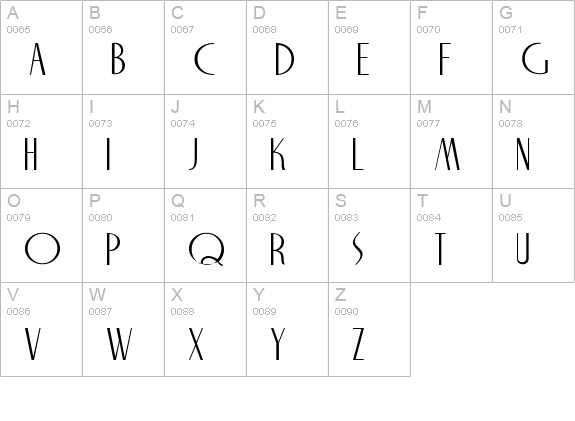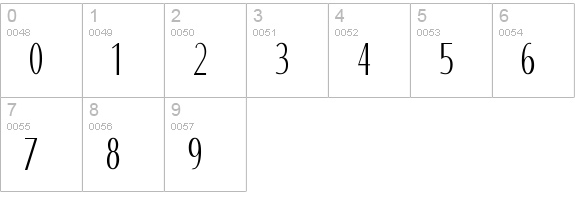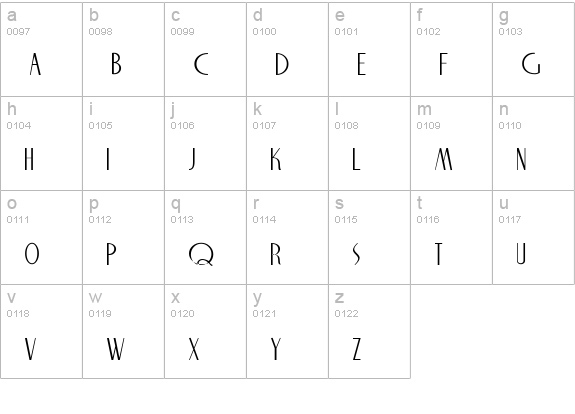
Nite Regular is the standard, neutral variant in the Nite typeface family \xE2\x80\x94 well suited to general body text, paragraphs, and standard typographic work.
Nite Regular font is a sleek and modern typeface that exudes sophistication and elegance. Its clean lines and sharp angles make it perfect for a wide range of design projects, from branding and advertising to editorial and web design. With its bold yet refined appearance, Nite Regular font is sure to make a statement and leave a lasting impression. Best of all, Nite Regular font is available for free download at FontsMarket.com. Whether you're a seasoned designer looking to add a fresh new font to your collection or a novice designer just starting out, Nite Regular font is a versatile and stylish choice that won't cost you a thing. Don't miss out on this fantastic opportunity to elevate your designs with the timeless beauty of Nite Regular font - download it for free today!